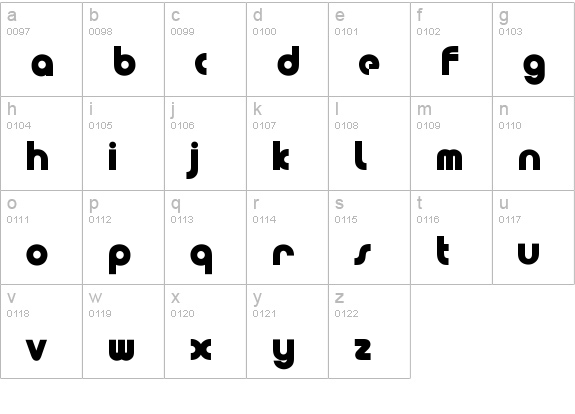
Puppet Font Details
Introducing Puppet font - a versatile and modern typeface that effortlessly combines elegance with a touch of playfulness. This unique font features a sleek and sophisticated design, making it perfect for a wide range of design projects. With its clean lines and stylish appearance, Puppet font is sure to make your text stand out and capture the attention of your audience. What sets Puppet font apart is not only its stunning aesthetic but also the fact that it is completely free to download. Yes, you read that right - Puppet font is available for free at FontsMarket.com, allowing you to add a touch of creativity to your projects without breaking the bank. Whether you're working on branding materials, invitations, posters, or any other design project, Puppet font is the perfect choice for adding a touch of modern flair. Download Puppet font today and unleash your creativity with this beautiful and versatile typeface.